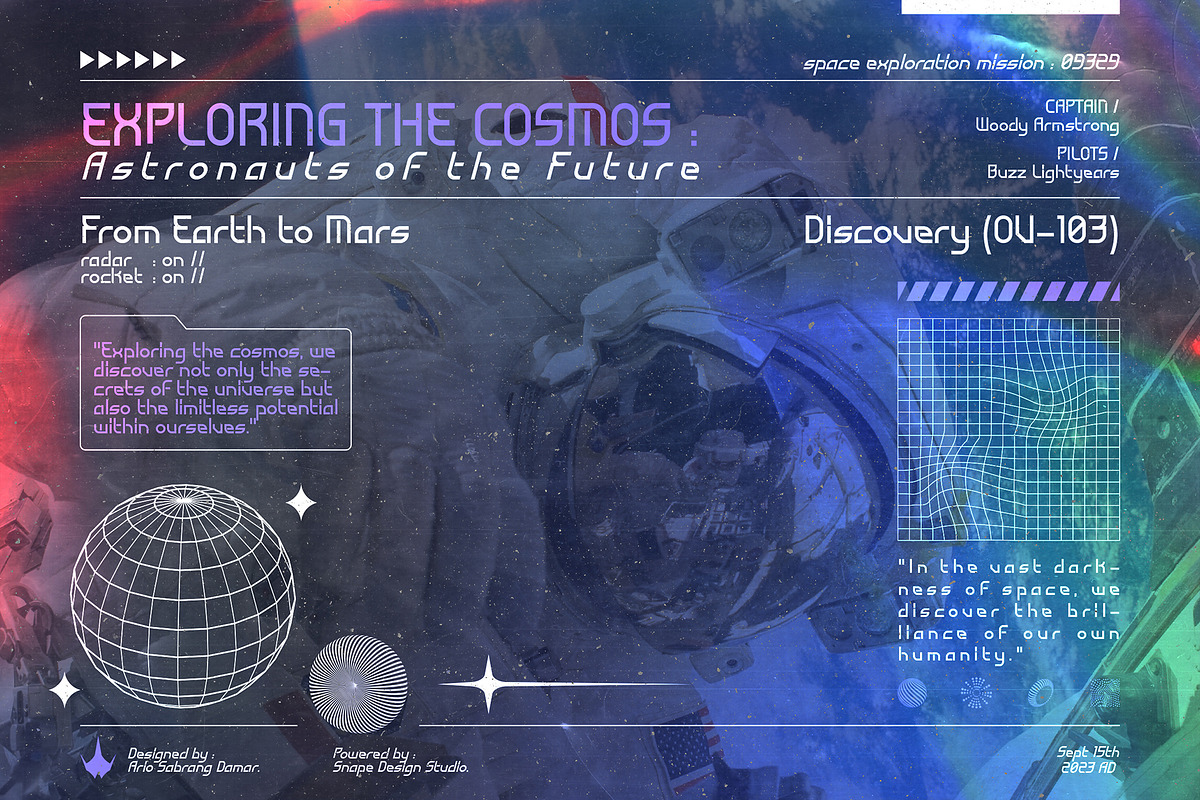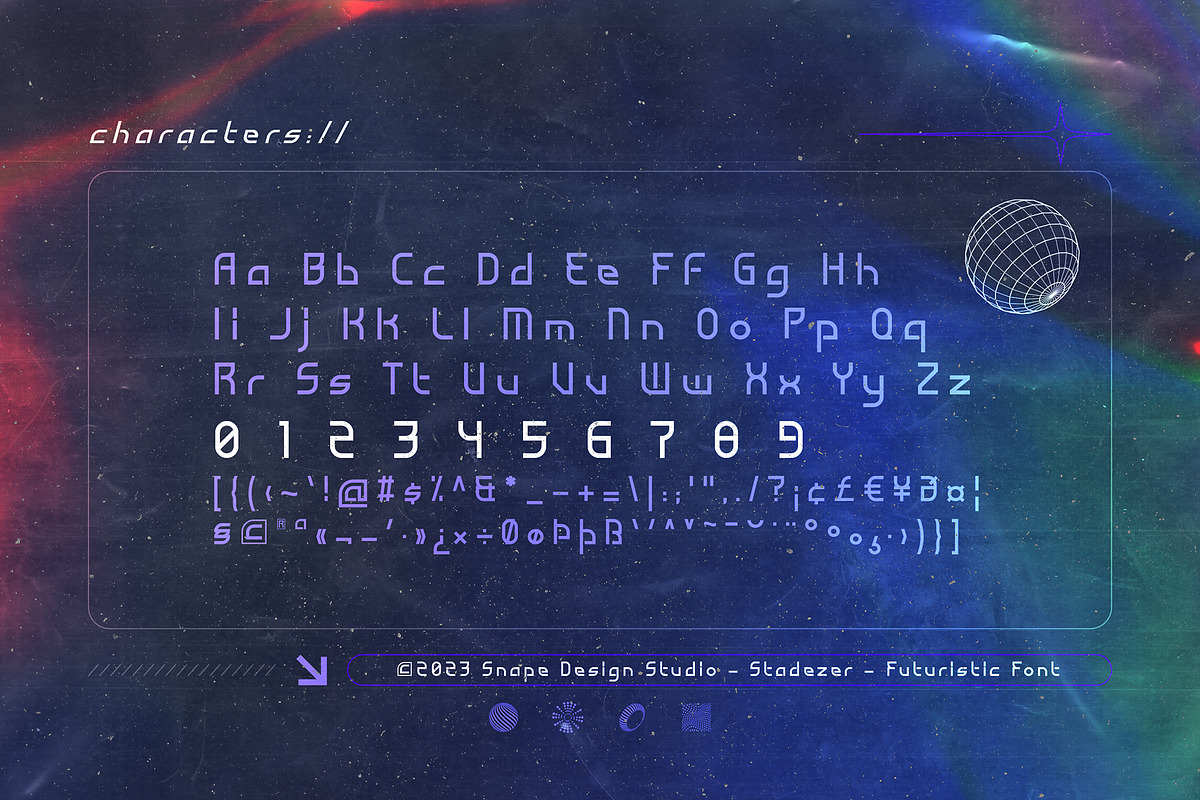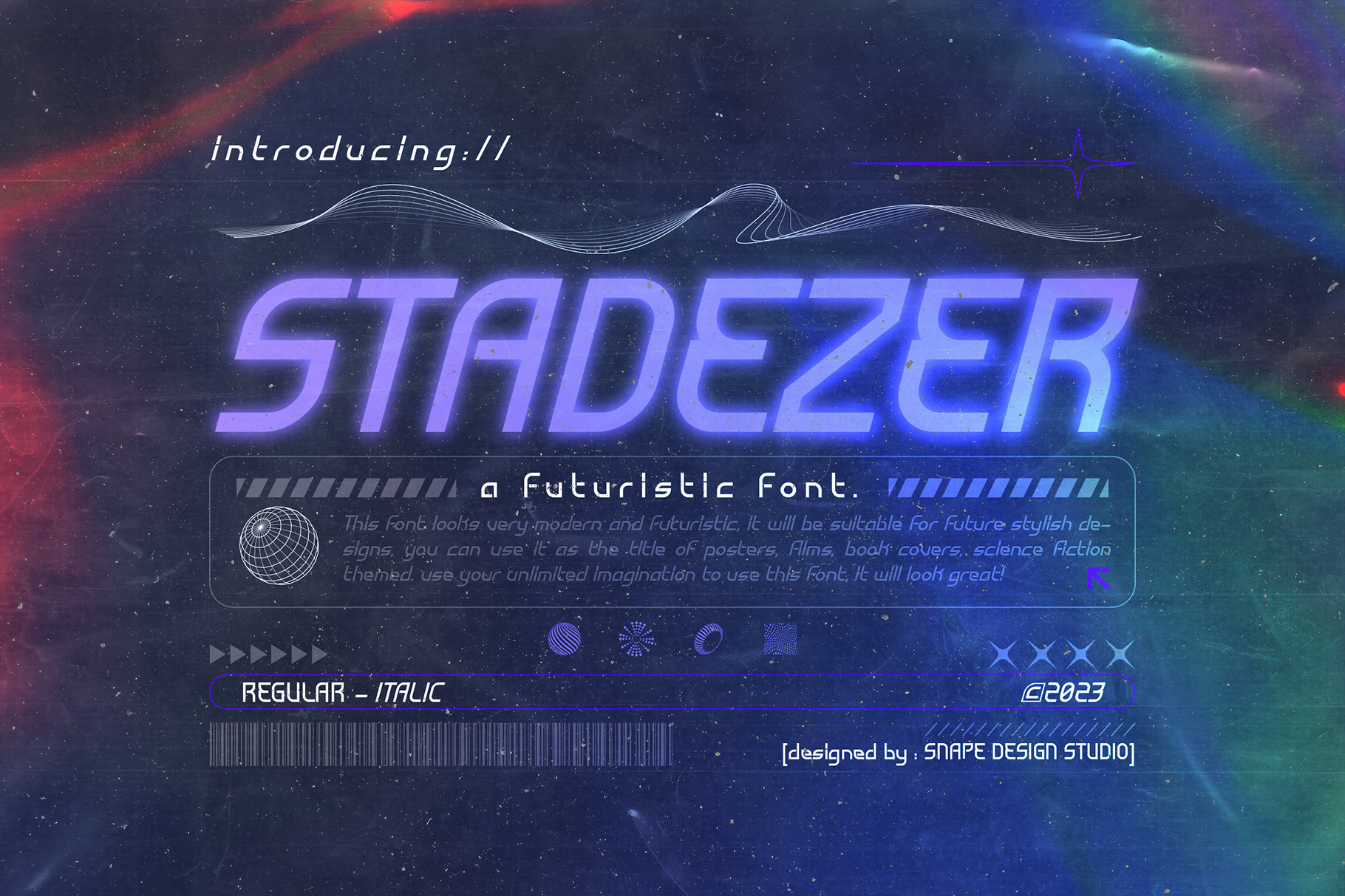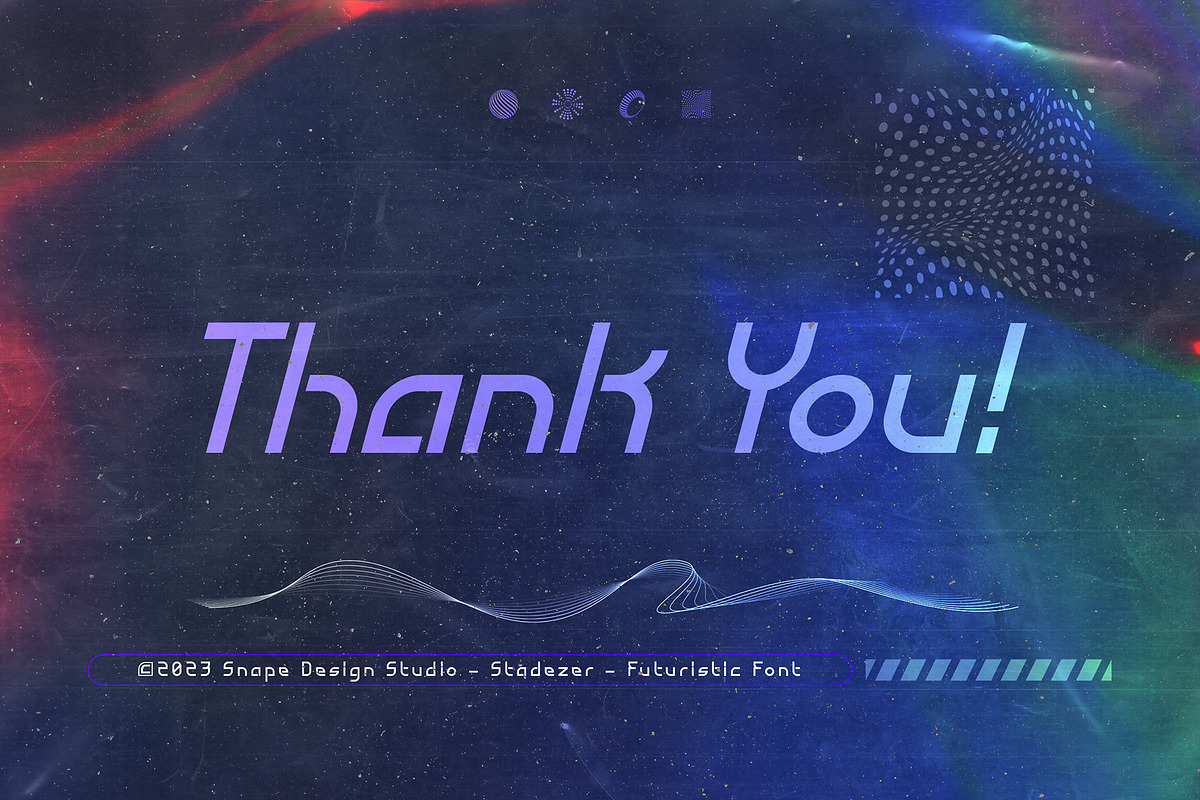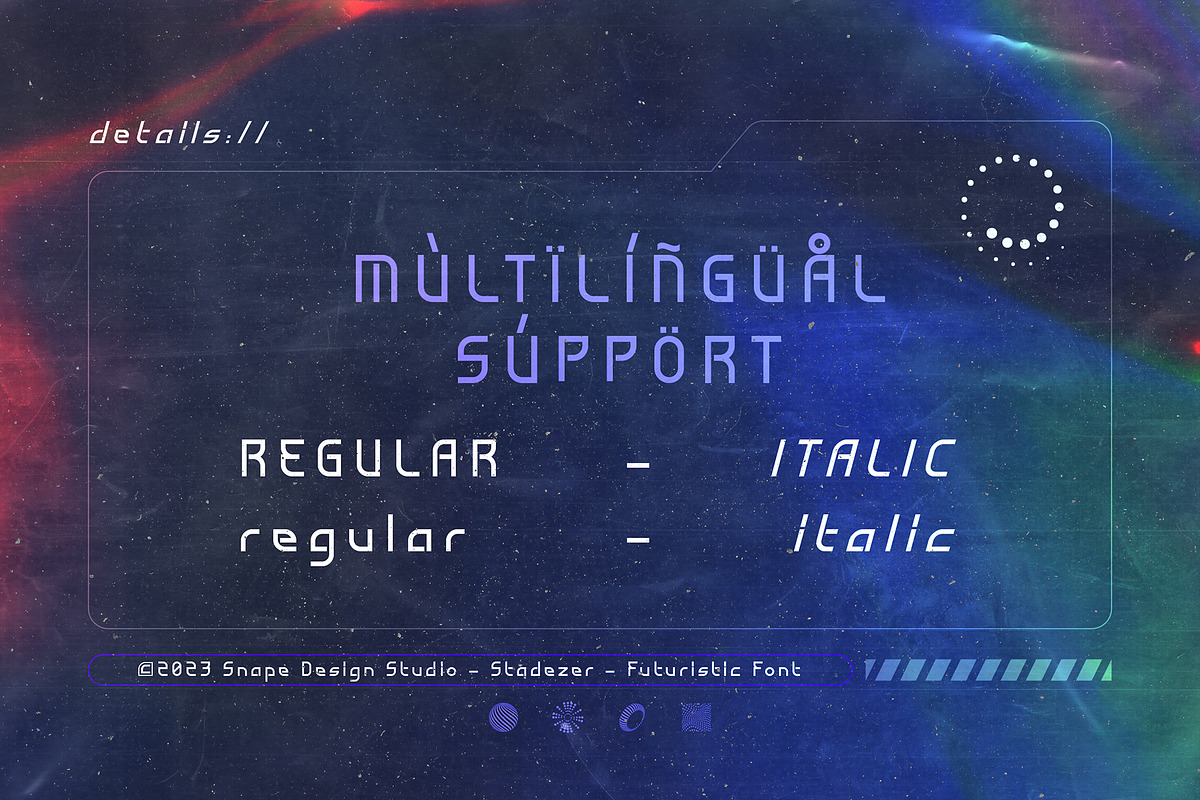
Stadezer - Futuristic Font
Introducing our Futuristic Font product – where innovation meets aesthetics in the realm of typography. This cutting-edge collection of fonts redefines the future of design, offering sleek, dynamic, and visually striking characters that seamlessly blend technology and artistry. Perfect for sci-fi themes, tech branding, or any project that demands a modern edge, these fonts empower creativity with their versatility and user-friendly customization options. Elevate your designs to the next level and embrace the future of typography with our Futuristic Font product.
FEATURES : Uppercase Lowercase Number Punctuation Multilingual
FAMILY FONT : Regular Italic